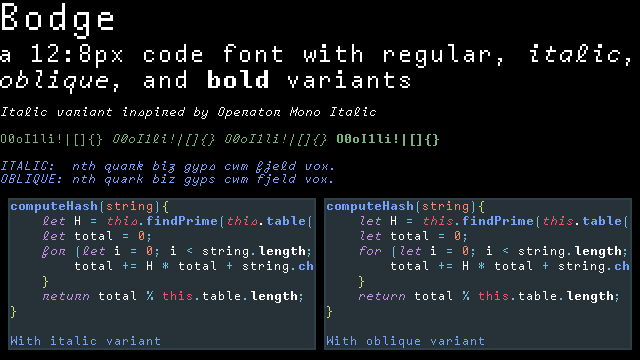
IMPORTANT: DO NOT REUPLOAD. Do Not Reupload. ABSOLUTELY NO Reuploads. Come on, get it together. You can read this, can't you? ==== Bodge is a monospace font with both italics and oblique. The italic portion was inspired by Operator Mono, which generated quite some controversy within the font nerd community! |